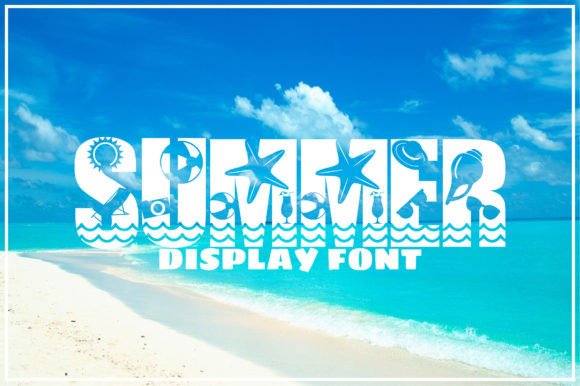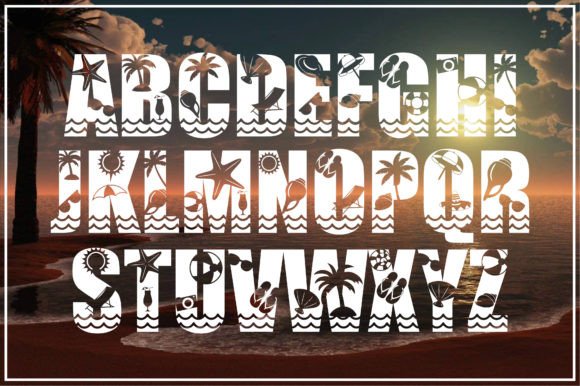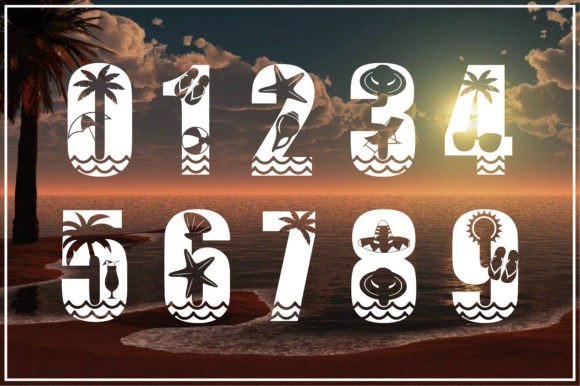
Summer Font
summer is a dramatic decorative font. It is perfectly suitable for any design or crafty idea! Add it confidently to your projects and you will love the results!